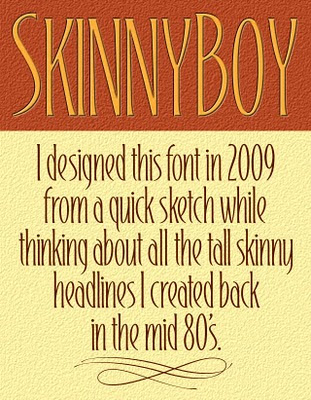
The concept sketch was drawn on a 5" X 8" sheet of notebook paper.
The sketch was scanned for a template in Illustrator. The letters were drawn using single strokes of the pen tool. The offset path filter was applied to the strokes for the base letterform shapes. I added serifs to the path shapes and adjusted all vertical stroke thickness. Some letters required changes from the original concept sketch.
I eventually drew all the letters needed to build a complete character set and imported each letter to Font Lab Studio for output to OpenType format.